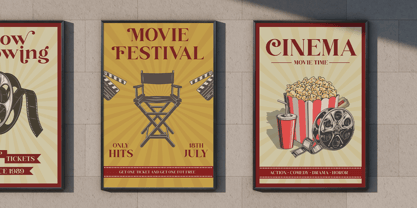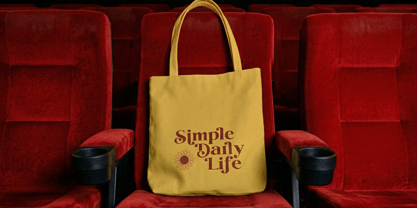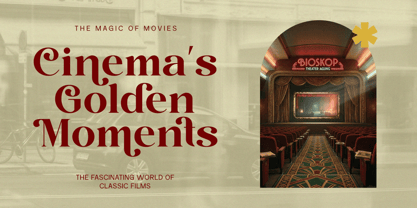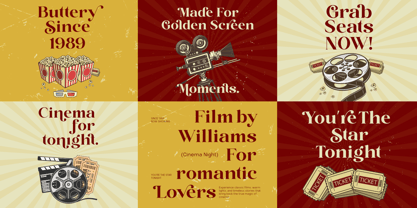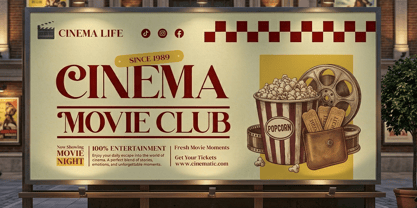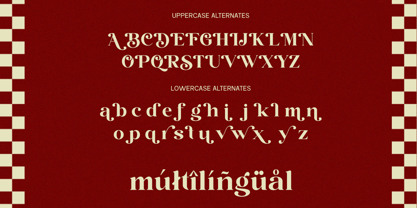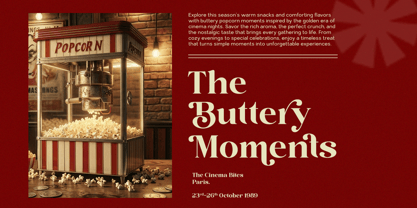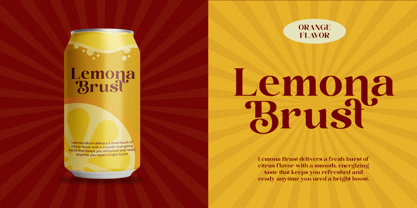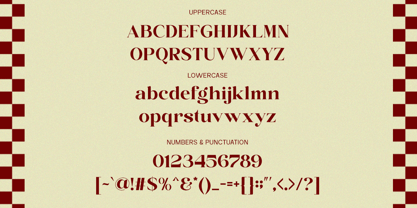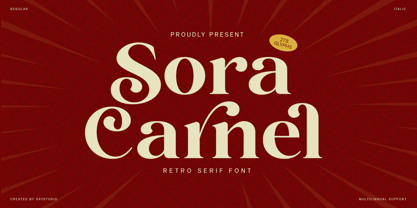
Sora Carnel
by Say Studio
The Sora Carnel Font Family was designed by Mussyayin and published by Say Studio. Sora Carnel contains 2 styles and family package options. More about this family
Sora Carnel is a retro serif font that combines nostalgic charm with a modern twist. Drawing inspiration from vintage typography and classic print design, this typeface showcases bold curves, playful terminals, and distinctive character shapes that evoke a warm, timeless feel. Its personality is both expressive and elegant, ensuring it stands out in any creative composition. Designed for versatility, Sora Carnel excels in branding, posters, packaging, and editorial layouts. Its retro aesthetic is perfect for vintage-themed designs, while its clean execution keeps it relevant for contemporary applications. Whether utilized for striking headlines or stylish branding, it provides a unique and memorable visual identity. Featuring a rich set of glyphs and multilingual support, Sora Carnel is crafted for global use and professional design needs. This font is an ideal choice for designers aiming to create eye-catching, nostalgic, and stylish typography with a strong impact.
Sora Carnel